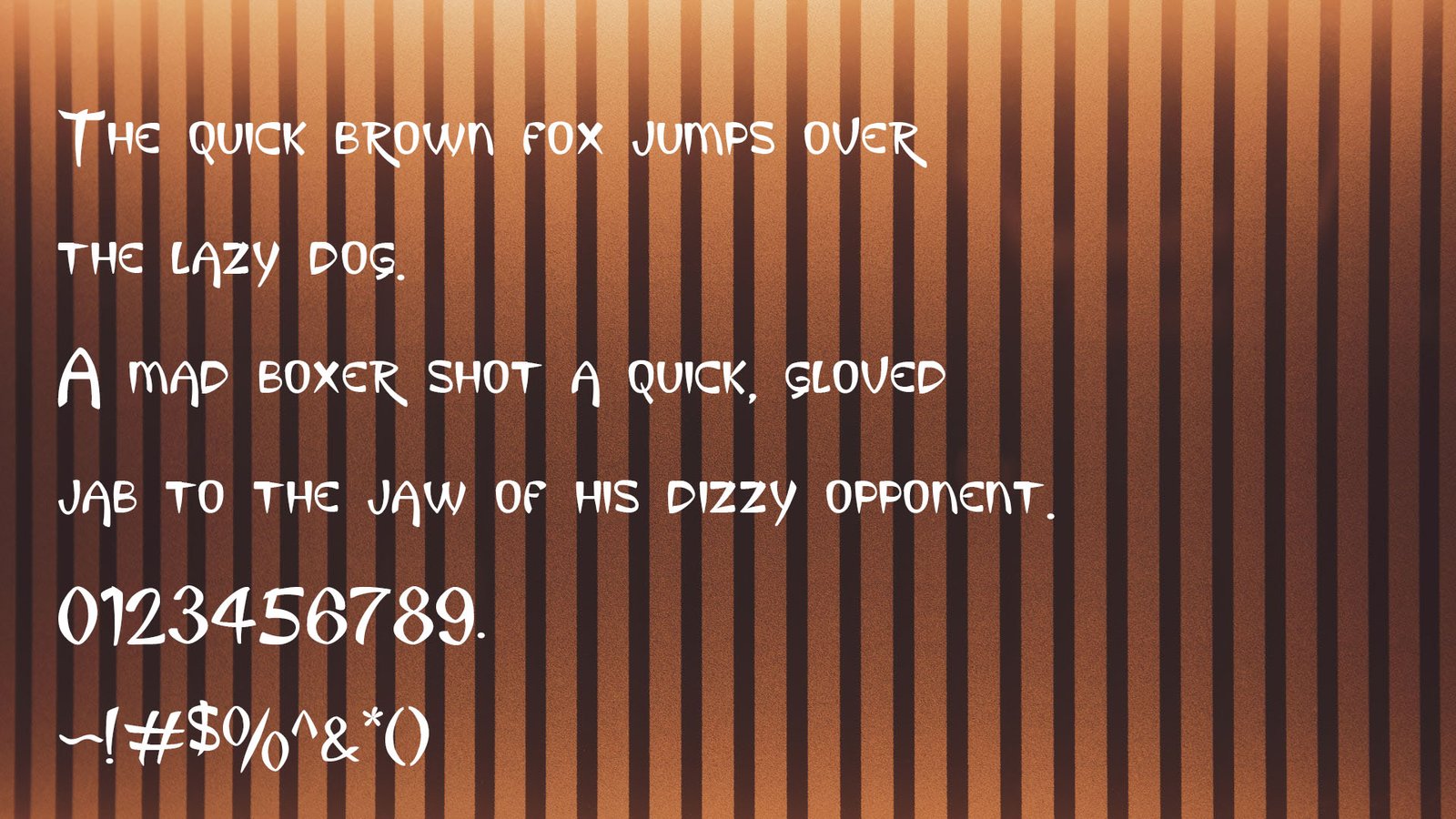
Welcome here, we are sharing with you the best Fancy typeface family. This texture name is the King Luau Font. This elegant and amazing typeface was designed by Steve Ferrera Designer. It was published in 2010. It consists of all characters of alphabets.
This typeface has six weights. This typeface looks like an island, Caribbean, island, Ohana, and old Hawaiian typeface.
King Luau Font Family
This typeface has a great pairing standard. You can make the best posters and logo designs with the help of this generator tool. This wonderful typeface can make your designs look very beautiful. It has a stylish and impressive texture appearance.